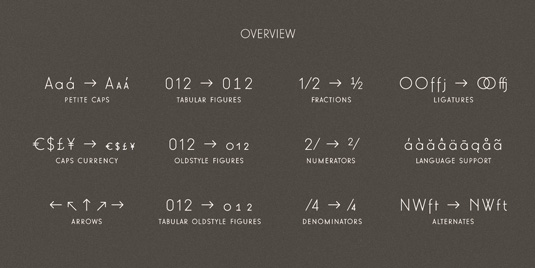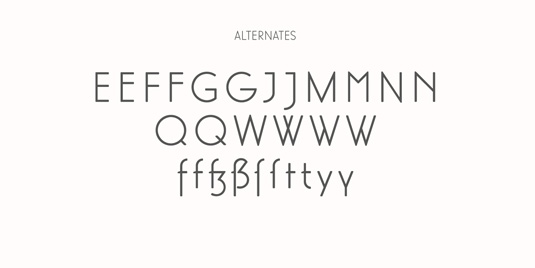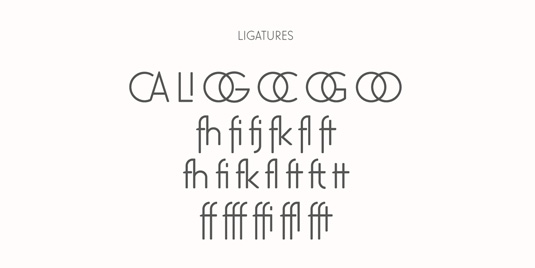
Font of the day: Elegant Lux
Elegant Lux by Florian Paizs
Today's font of choice is Elegant Lux by designer Florian Paizs. "This is my interpretation and sketching of Hans Möhring's sketches of Elegant Grotesk from 1929," he comments.
A work-in-progress, Paizs is currently still working on Elegant Lux, correcting kerning issues and developing more weights. But, in the meantime, he's offering a demo version of his font as free download.